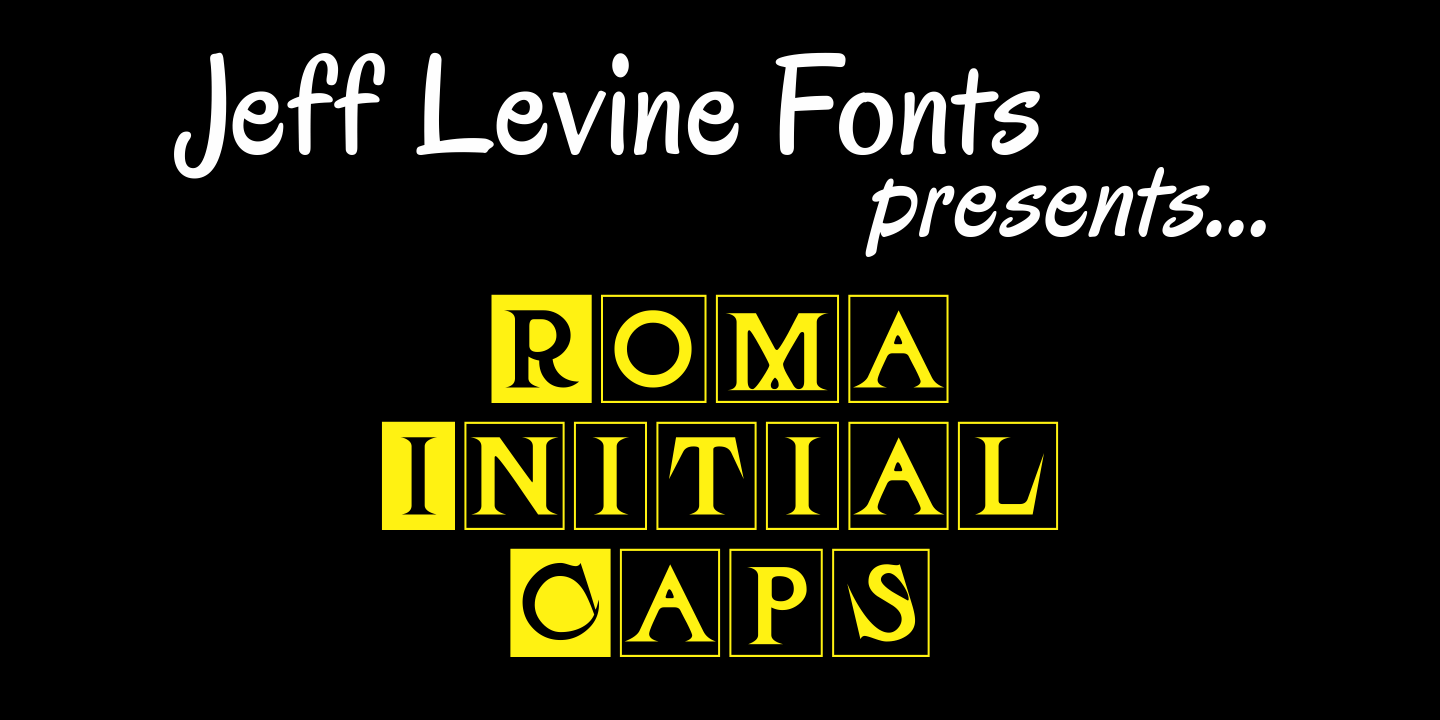
Roma Initial Caps
Roma Initial Caps JNL is a set of alphabet caps drawn from elegant lettering found in an old sign painter's manual. The upper case keys have the letters in white on black backgrounds, while the lower case has the letters in black on a white background with a black border.
Roma Initial Caps JNL Regular by Jeff Levine Fonts